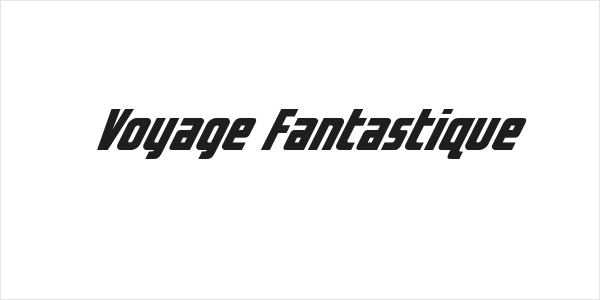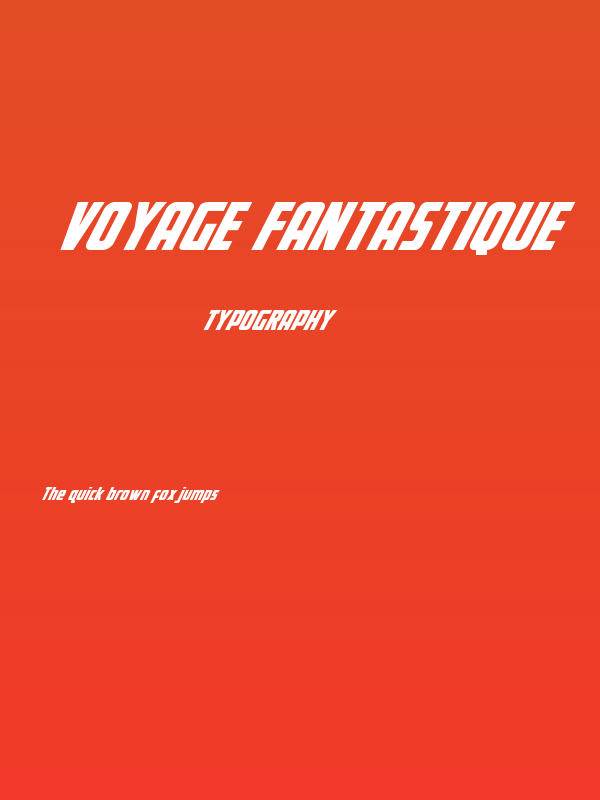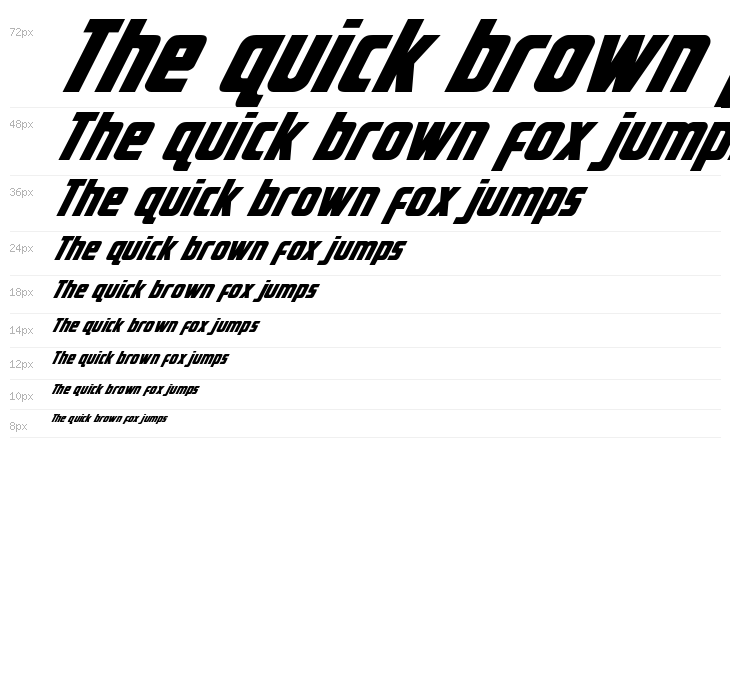
Voyage Fantastique Font
Voyage Fantastique Description
This font features a bold, italicized style with a strong presence and dynamic energy. The characters are slanted, giving a sense of motion and speed, which is enhanced by the thick, consistent strokes. The uppercase and lowercase letters maintain a cohesive look, with sharp angles and a slightly condensed form. The numbers and special characters follow the same design principles, ensuring uniformity across all glyphs. This font's boldness and slant make it ideal for attention-grabbing designs.
| Proposed Projects | Ideal for sports branding, dynamic posters, automotive advertisements, and any project requiring a sense of speed and energy. |